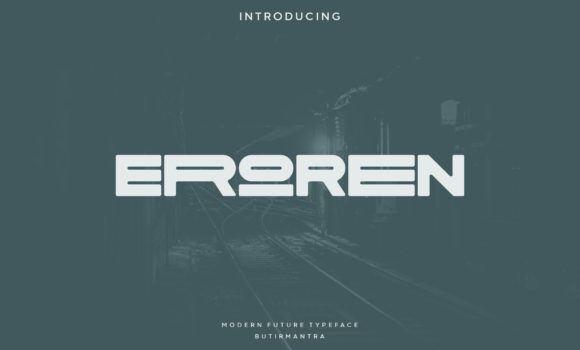
eroren
Eroren Font – Free Download Introduction to Eroren Font Eroren is display font with a unique style with a little improvisation in the uppercase mode, although this font is all uppercase but has a unique on outline font. 📸 Preview